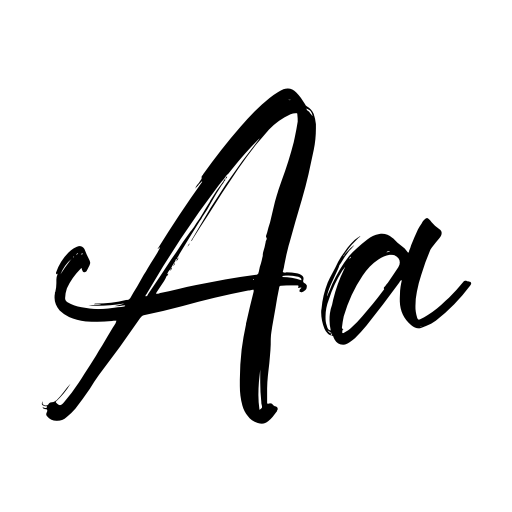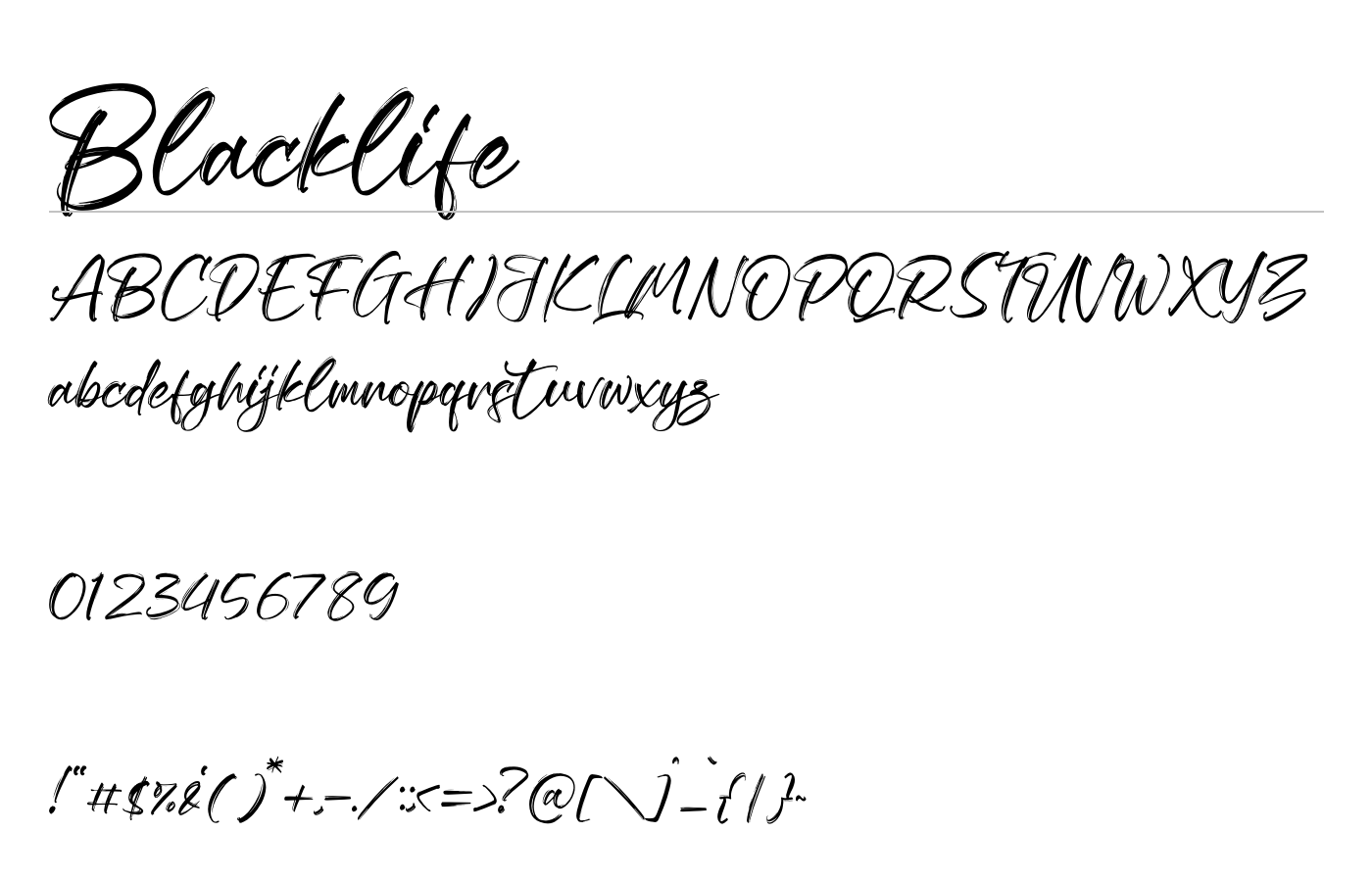
Blacklife is a lively and elegant script font that mimics natural handwriting with energetic, flowing strokes and moderate contrast. Its casual, yet refined character makes it perfect for creative branding, invitations, and stylish headlines where a personal, artistic touch is desired. This font brings warmth and personality, ideal for fashion, lifestyle, and expressive visual designs.
Blacklife Font
About Blacklife Font